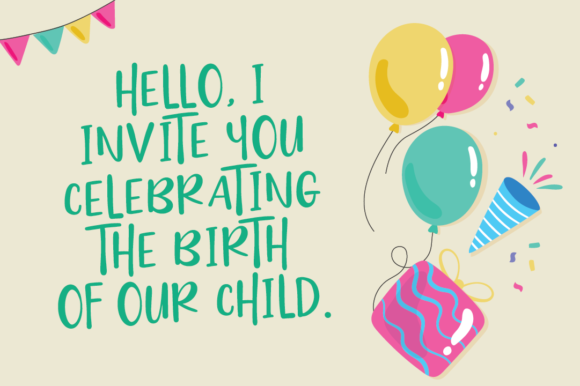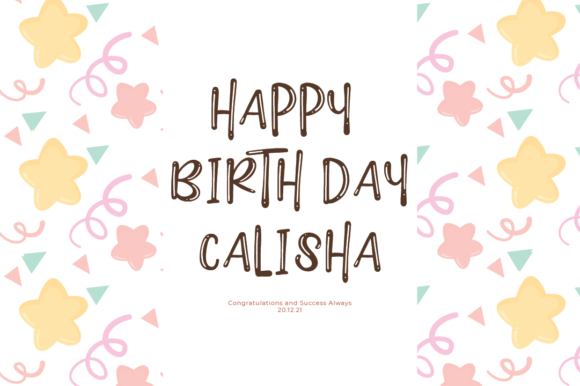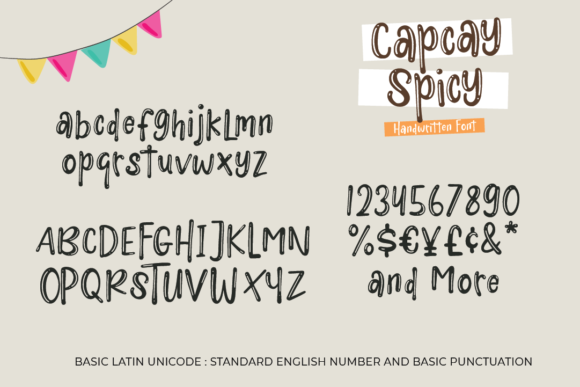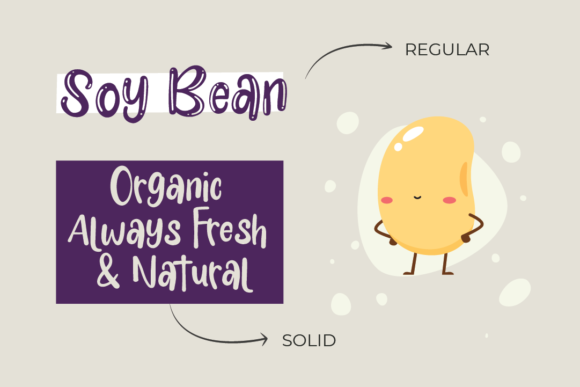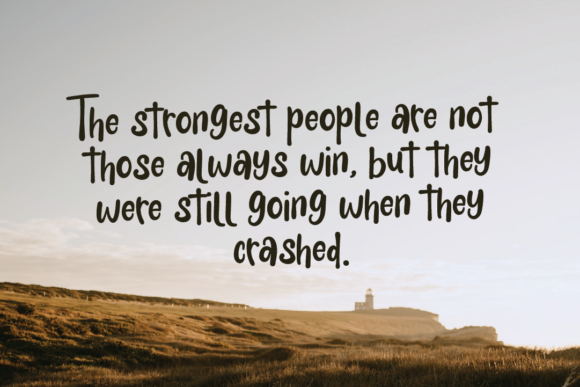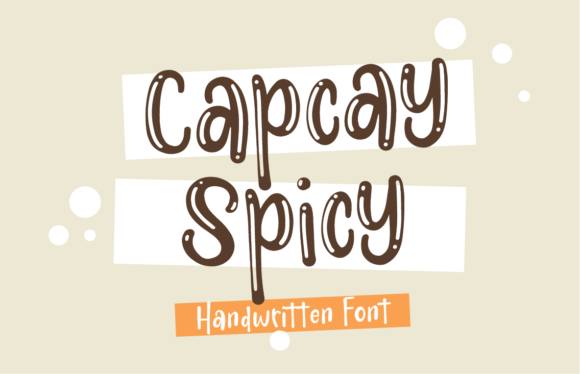
Unleash Your Creativity with the Perfect Font
Have you ever stared at a blank page, struggling to find the right words to bring your creative vision to life? It’s a familiar feeling for many designers, but what if we told you that the right font could be the key to unlocking your full potential? Enter Capcay Spicy Font, a quirky and relaxed display font that’s perfect for adding a touch of personality to your designs.
| 📌 Product Name | Capcay Spicy Font |
| 👤 Author | Asd Studio |
Capcay Spicy Font is more than just a font – it’s a versatile tool that can elevate your creations and leave a lasting impression on your audience. Whether you’re working on a branding project, a social media campaign, or a simple blog post, this font has the potential to enhance your message and make it stand out. With its unique character and relaxed vibe, Capcay Spicy Font is a valuable addition to any designer’s font library.
Key Features of Capcay Spicy Font
- Font Family: Capcay Spicy Font is a sans-serif font family designed to evoke a sense of energy and playfulness.
- Font Sizes: Offers a range of font sizes, from 8pt to 120pt, catering to various design needs, from small text to large headings.
- Resolution: Designed for high-resolution displays, including 4K and Retina screens, ensuring crisp and clear typography at all zoom levels.
- Unique Characteristics: Features a unique blend of geometric and organic shapes, creating a dynamic and eye-catching visual effect.
- Font Weight: Includes 10 font weights, ranging from Light to Black, allowing designers to achieve a wide range of visual styles and moods.
Designer Review: Capcay Spicy Font
I’ve had the chance to play around with Capcay Spicy Font, and here’s my honest take.
- The unique blend of modern and traditional Asian influences is a breath of fresh air in the world of fonts.
- The font’s bold and confident personality is perfect for making a statement in branding and marketing materials.
- The extensive character set and language support make it a great choice for global projects.
- The font may be a bit too loud or overpowering for delicate or minimalist designs.
- The sans-serif style may not be to everyone’s taste, and some users may find it too edgy or avant-garde.
- The font’s spacing and kerning could be improved for better readability, especially at smaller font sizes.
Overall, I think Capcay Spicy Font is a great addition to any designer’s toolkit. While it may not be perfect for every project, its unique style and versatility make it a great choice for those looking to add some excitement to their designs. With a bit of fine-tuning, I have no doubt it will become a fan favorite among designers and brands looking to make a bold statement.
The Capcay Spicy Font is ideal for:
– Food and beverage branding
– Travel and adventure marketing
– Spicy or bold-themed designs
– Creating attention-grabbing headlines
Tips for Getting the Most Out of Capcay Spicy Font
To get the most out of the Capcay Spicy Font, use it sparingly to add emphasis and create visual interest. Pair it with neutral colors and simple designs to let the font shine.
Compared to Capcay Spicy Font, Great Vibes Font has a more refined and polished look, making it suitable for a wider range of applications. While Capcay Spicy Font is more playful and energetic, Great Vibes Font is more subdued and sophisticated.
Alex Brush Font is a beautiful, handwritten font that’s perfect for adding a personal touch to your designs. It’s ideal for use in creative projects, such as invitations, posters, and greeting cards.
Compared to Capcay Spicy Font, Alex Brush Font has a more organic and hand-drawn feel, making it suitable for projects that require a more personal and creative touch. While Capcay Spicy Font is more bold and attention-grabbing, Alex Brush Font is more subtle and understated.
Yes, the Capcay Spicy Font is designed for digital use and is optimized for web and mobile platforms. You can use the Web Font (WOFF2) format to easily integrate the font into your digital projects.
What is the recommended font size for optimal readability with the Capcay Spicy Font?
For optimal readability, we recommend using font sizes between 14px and 24px. This range allows the font to display clearly on various devices and screen resolutions. However, feel free to experiment with different font sizes to suit your design needs.